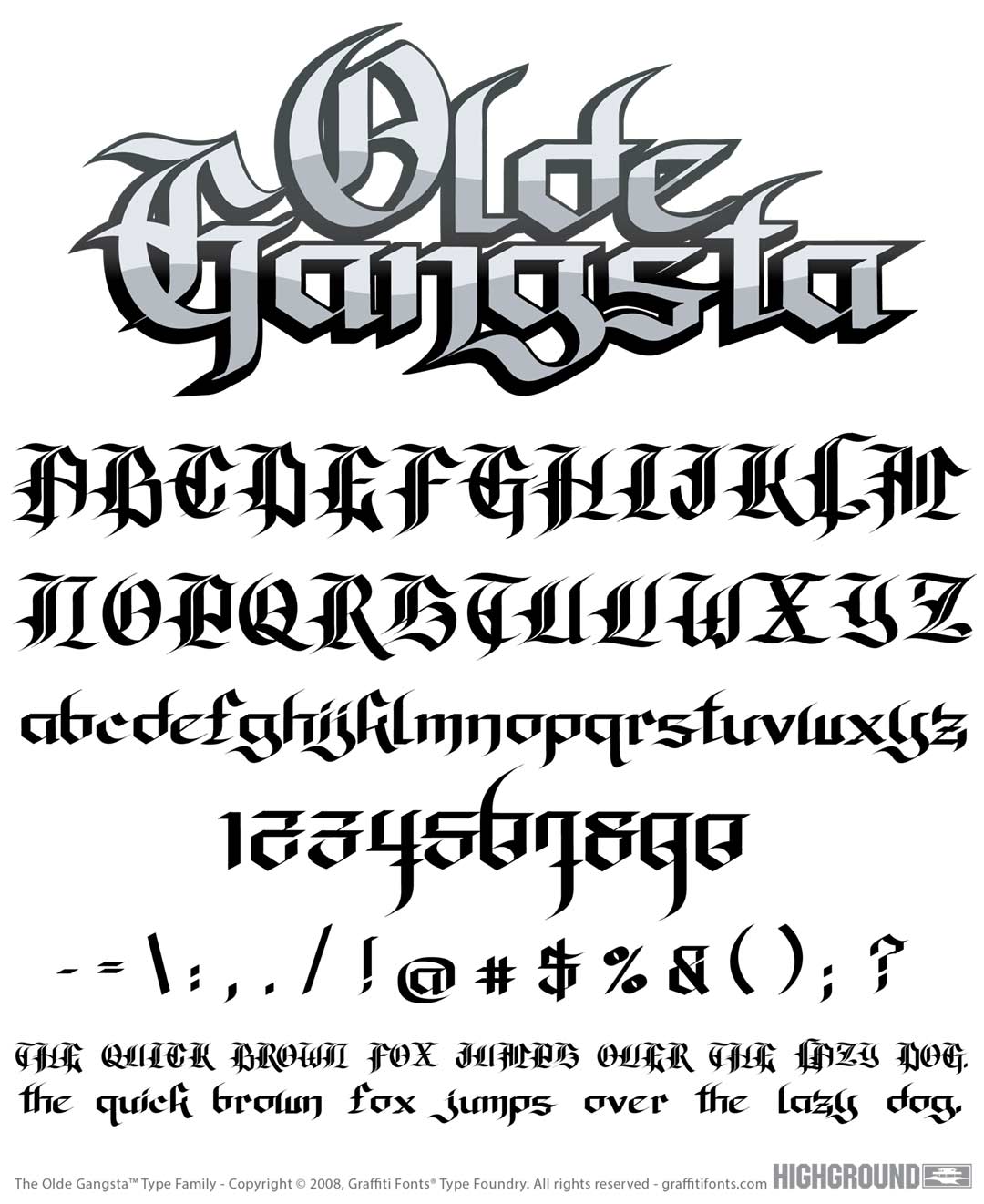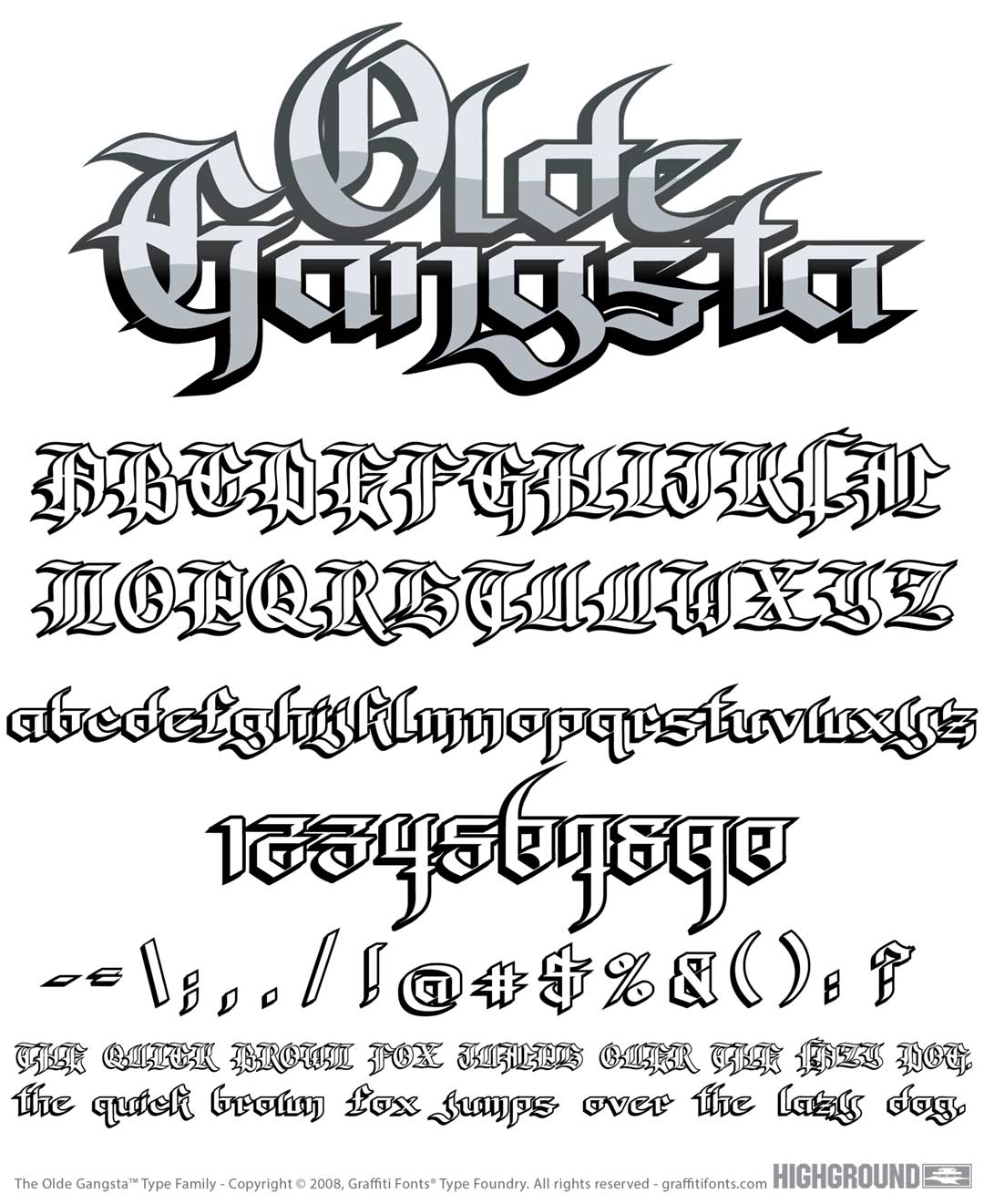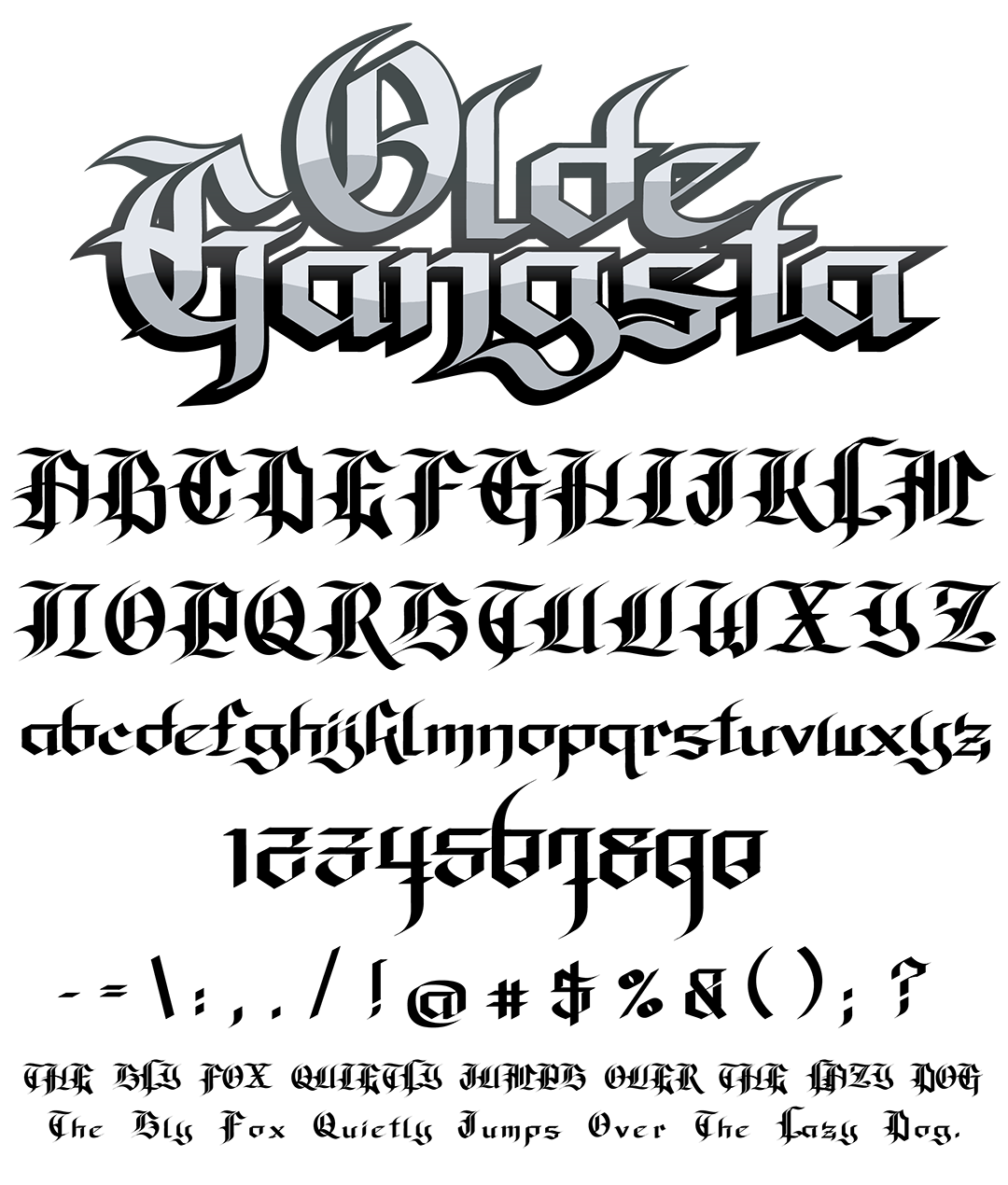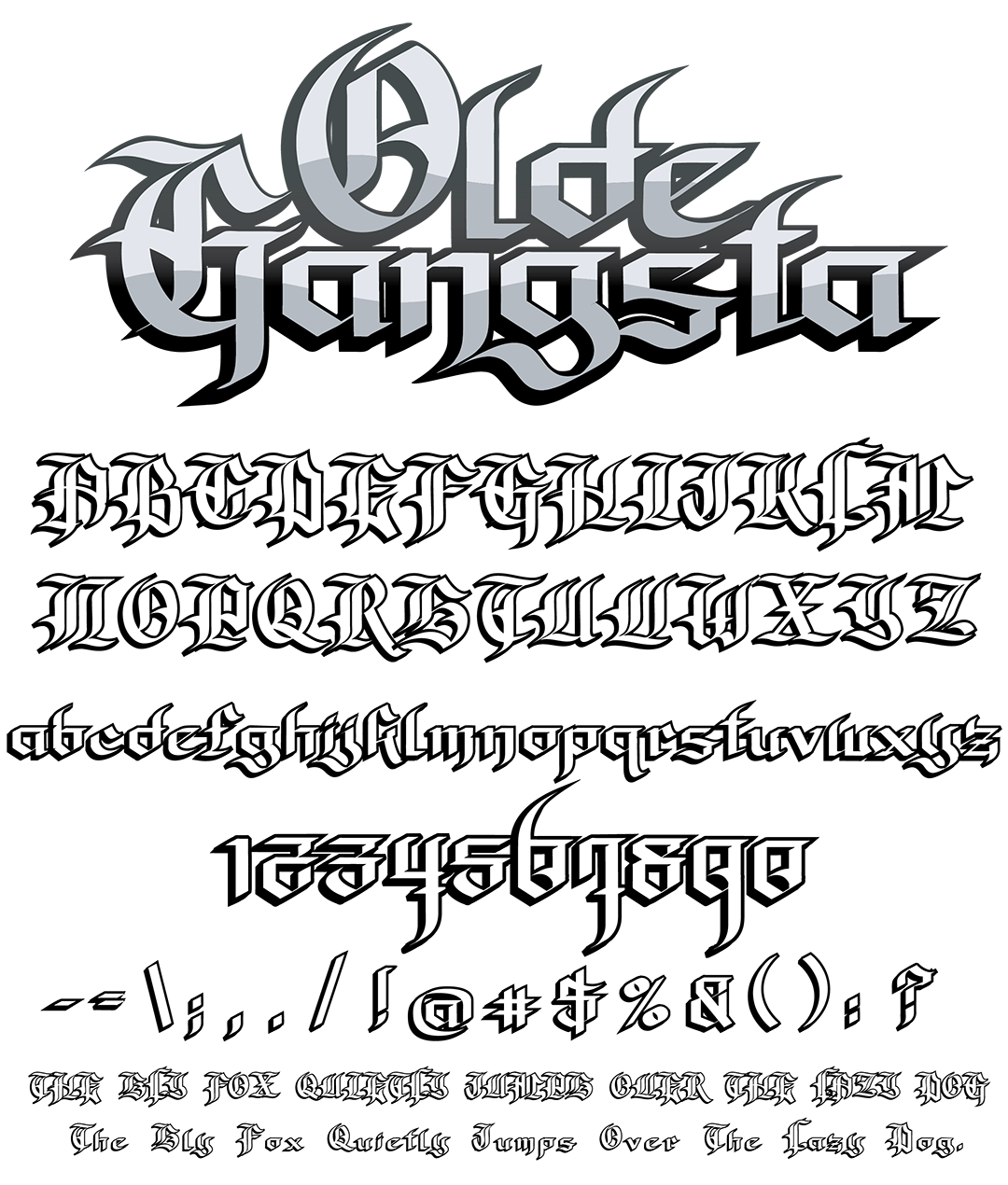
Olde Gangsta Font
Olde Gangsta Graffiti Alphabet
Olde Gangsta Graffiti Font Family
This font is a hybrid of old english & blacklister styles with influence from chicano american tattoo & graffiti styles. 86 characters in all include upper & lowercase letters, numbers & all basic punctuation. 2 Styles are included providing both solid fill & outline variations of the font.